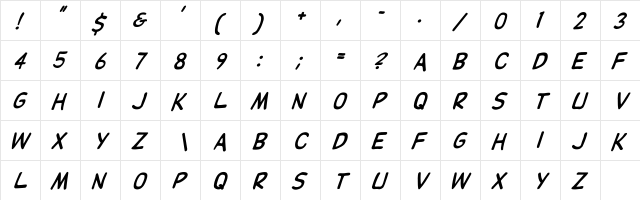
DupuyBALloon-It Regular
Design Context for DupuyBALloon-It Typeface
DupuyBALloon-It takes a measured approach to typography — its balanced proportions and neutral character make it a reliable workhorse for both digital and print work.